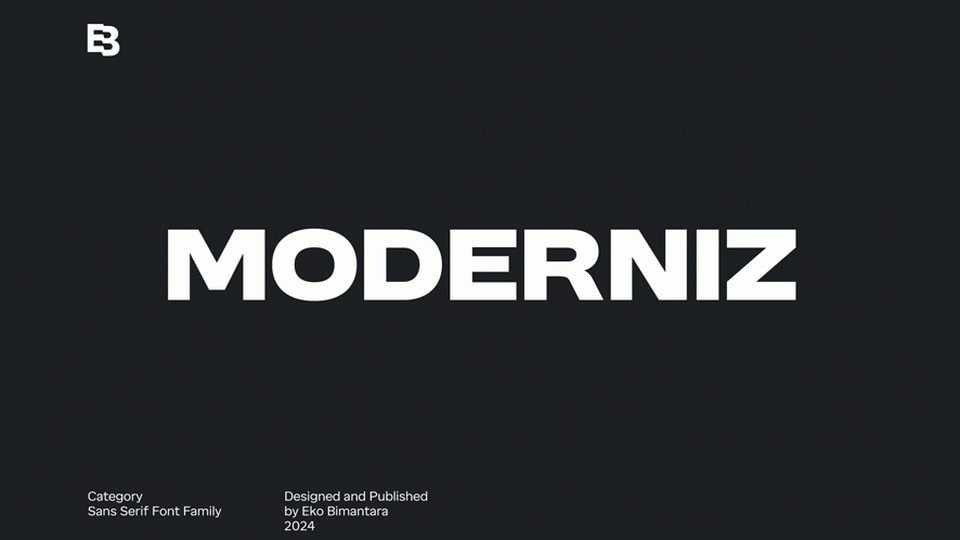
Download Moderniz font, a bold and strong modern sans serif font designed to make a powerful statement. It features robust letterforms with clean lines and a contemporary aesthetic.